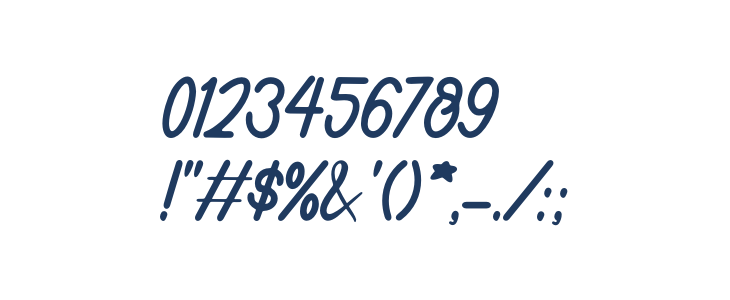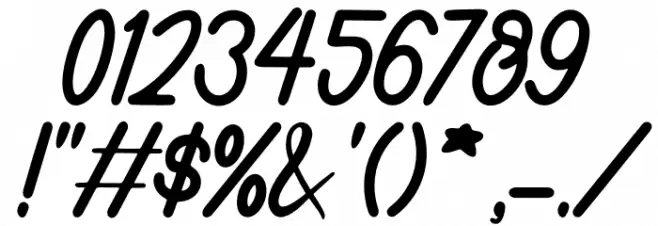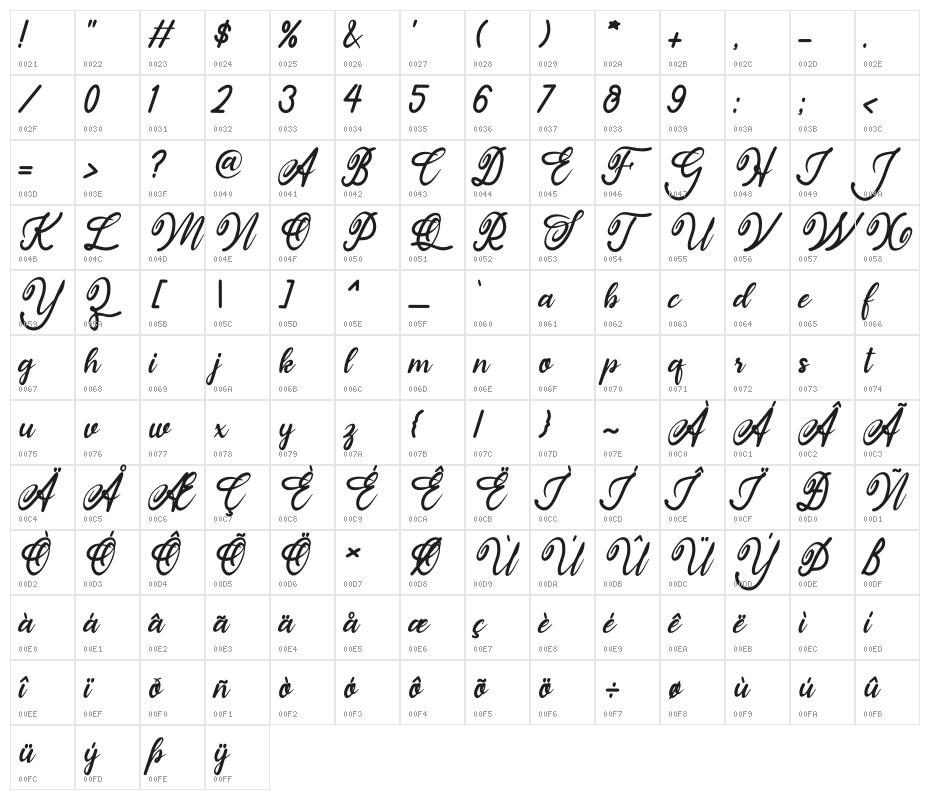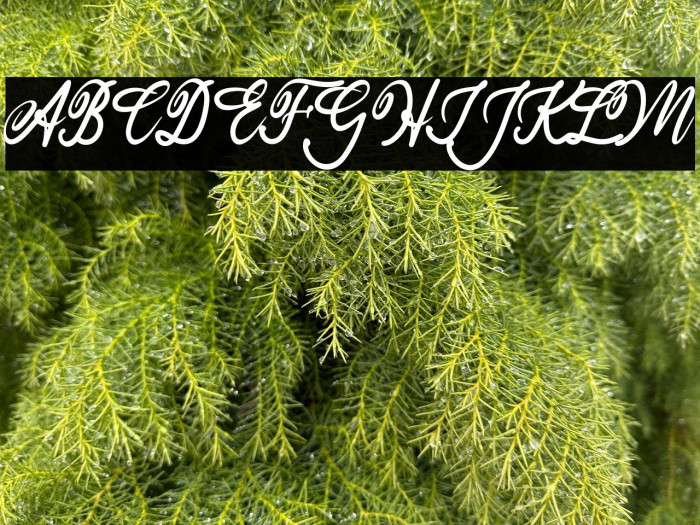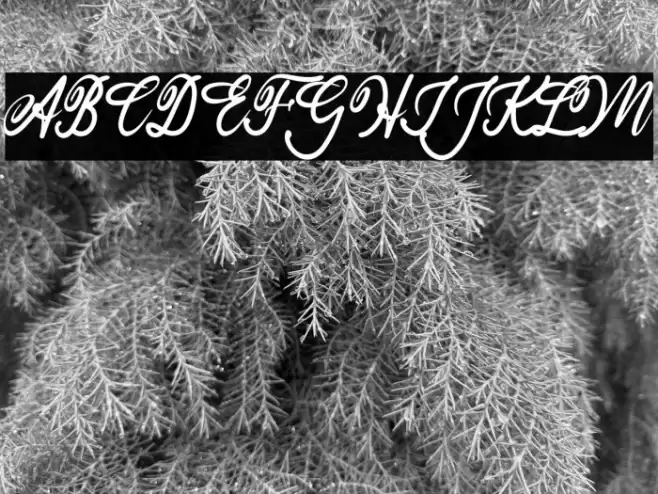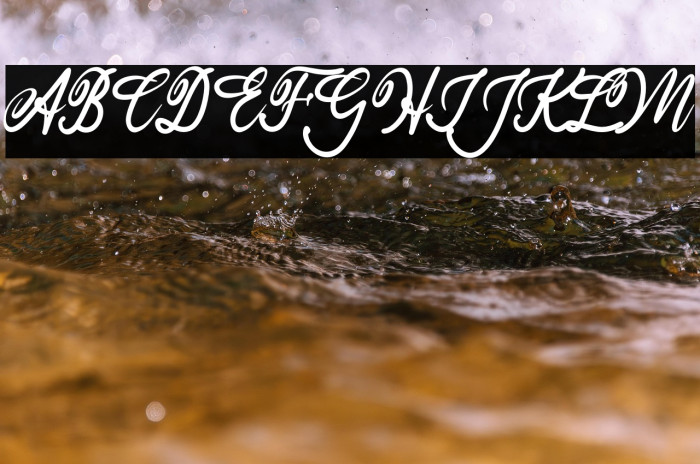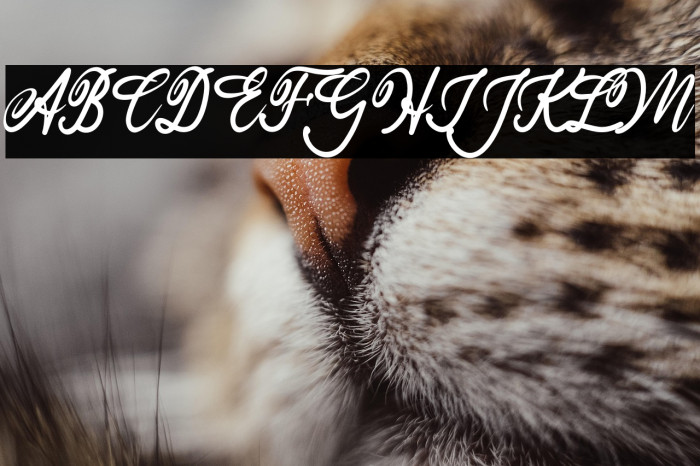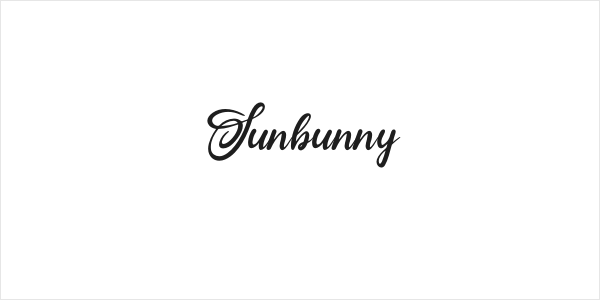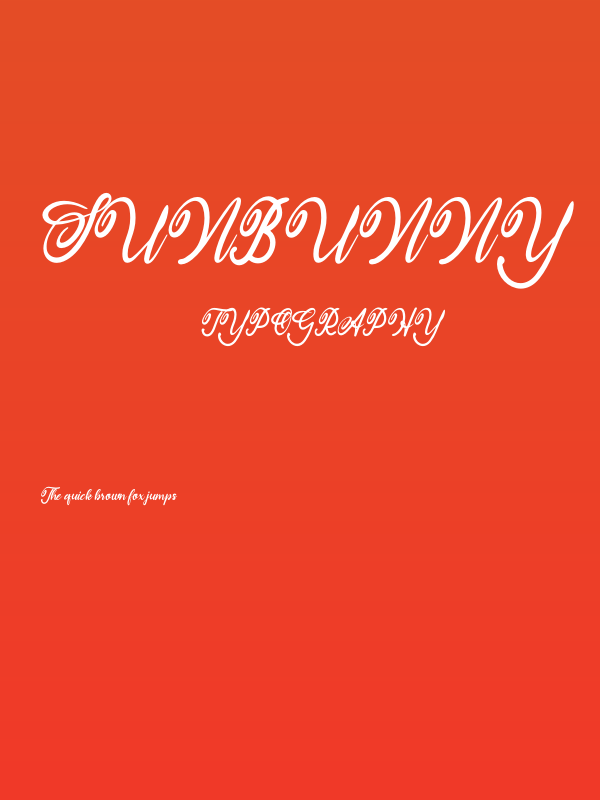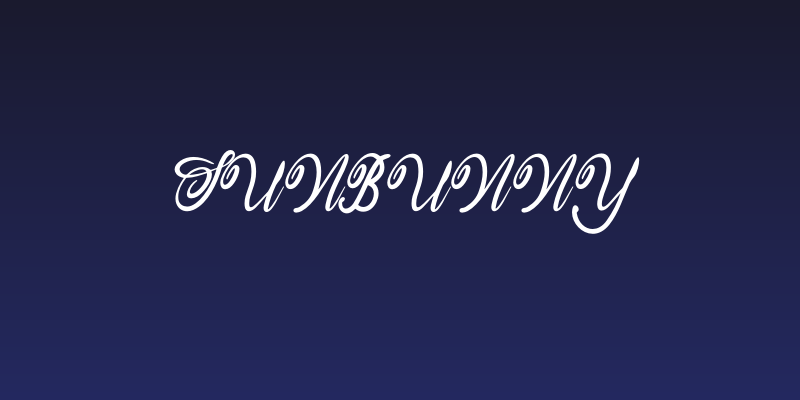
Sunbunny Font
Sunbunny Description
This font features a flowing, cursive style with elegant loops and swirls, giving it a sophisticated and artistic appearance. The uppercase letters are particularly ornate, with intricate curves that add a touch of flair. The lowercase letters maintain a consistent style, with smooth connections between characters, enhancing the script's fluidity. The numerals are bold and clear, ensuring readability while maintaining the overall aesthetic. Special characters are designed with the same attention to detail, making them blend seamlessly with the rest of the font. This font is perfect for projects that require a touch of elegance and creativity.
| Proposed Projects | Ideal for wedding invitations, greeting cards, logos, and branding materials that require a sophisticated touch. |